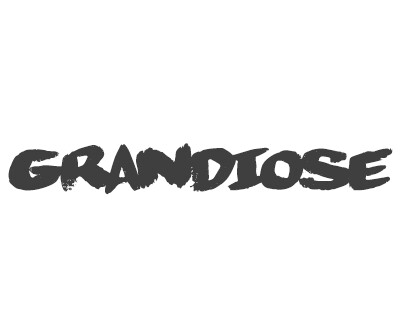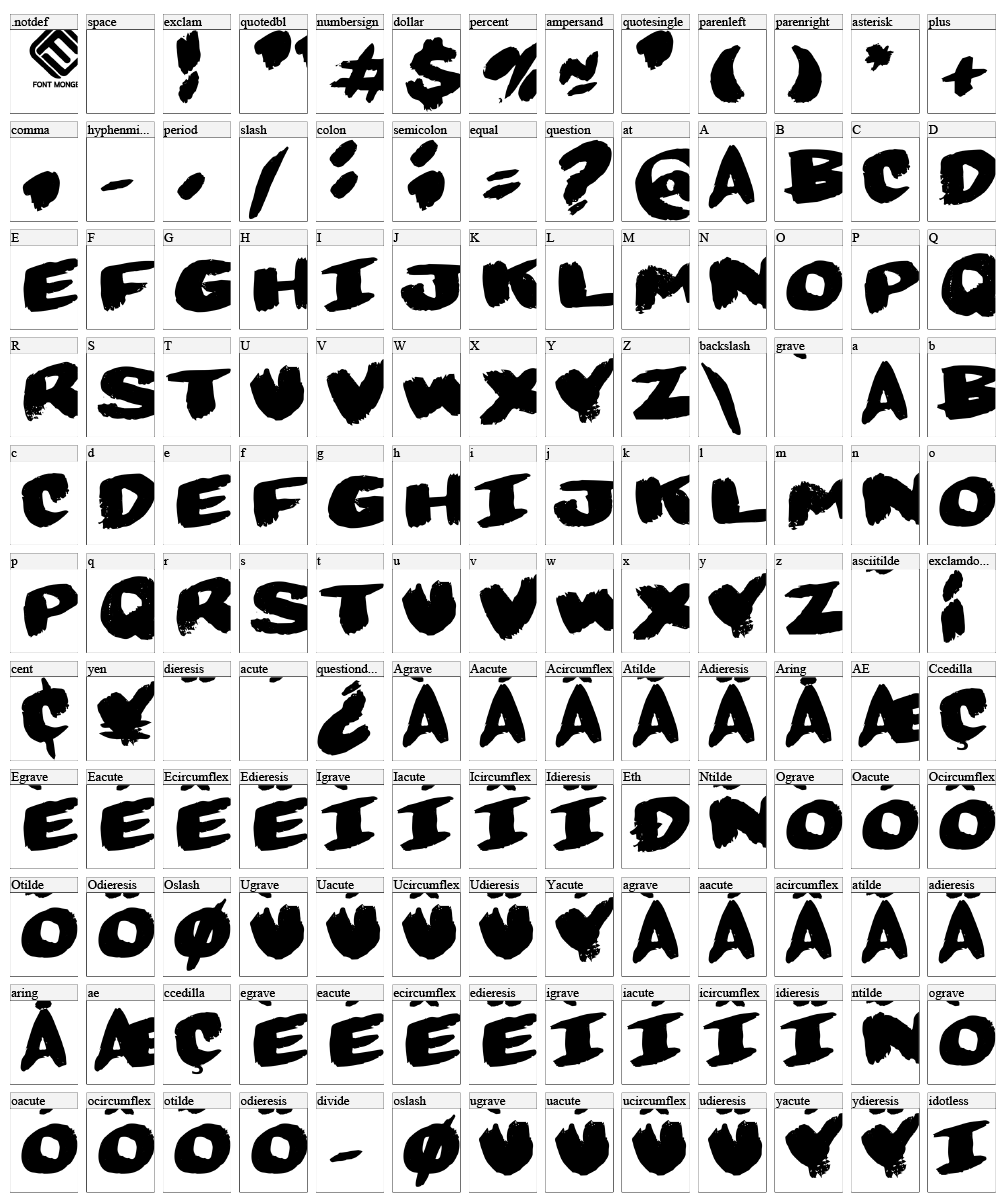
Grandiose: A heavy bold marker style font is a typeface that emulates the thick, bold lines of a marker or felt-tip pen. The letters are often chunky and exaggerated, with a dynamic, hand-drawn appearance. The font is designed to give the impression of being written quickly and spontaneously, with thick strokes and minimal variation in line weight.
This type of font is ideal for designs that require a bold, attention-grabbing aesthetic, such as posters, flyers, and logos. It can also be used in digital interfaces, such as app icons or social media graphics. The font's bold, heavy lines make it easy to read from a distance, and its playful, hand-drawn appearance gives it a sense of approachability and warmth.
Heavy bold marker style fonts come in a variety of designs and variations. Some have a more textured or uneven appearance, while others are more uniform and smooth. The font can be customized with a variety of colors, styles, and effects to suit the needs of the project. Overall, a heavy bold marker style font is a versatile and eye-catching option for designers looking to make a bold statement with their typography.
Lowercase: Same as uppercase
Numbers: No
Symbols: Yes
Punctuation: Yes
Accents: Yes